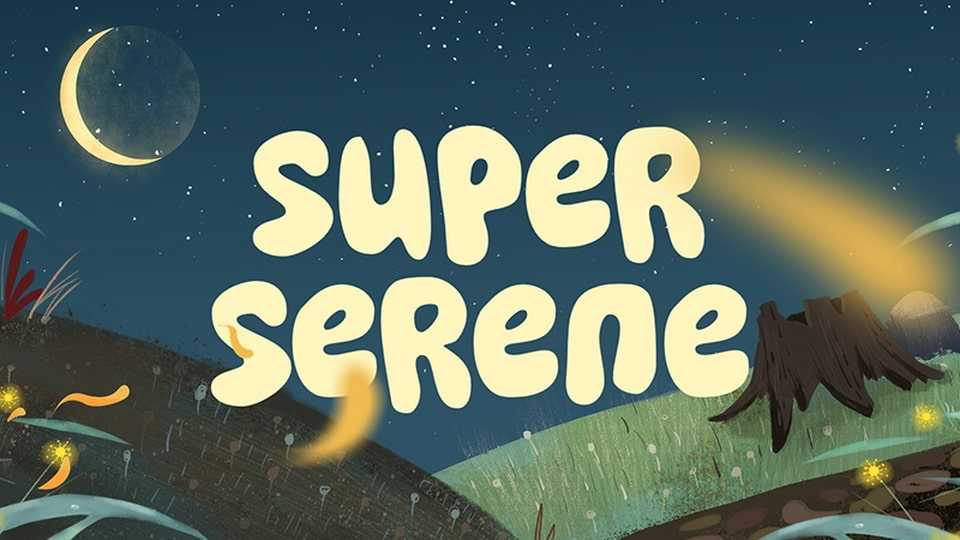
Download Super Serene font, a friendly and playful rounded cartoon typeface that bursts with charm and personality. Its smooth, hand-drawn curves and bouncy letterforms create a lighthearted vibe.